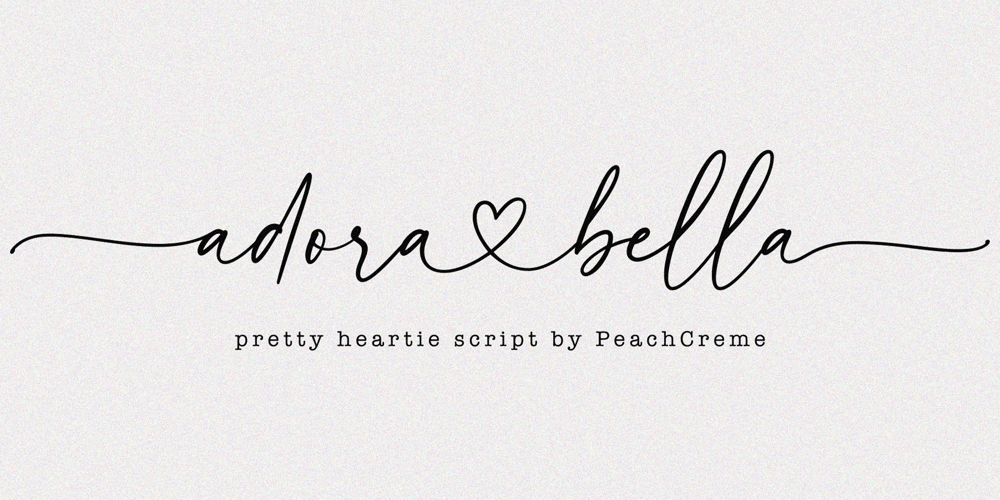
Adora Bella Font Family was designed by Gulya Yeap and published by PeachCreme. Adora Bella contains 1 styles and family package options. We’re excited to unveil our new beautiful script font, “Adora Bella.” “Adora Bella” was inspired by clean handwriting with a natural flow and works well for various designs, including wedding stationery, Instagram quotes, modern logos, packaging, websites, and many more. “Adora Bella” features fabulous beginning and ending lowercase swashes as well as lowercase heart swashes. A connecting heart swash may be used to tie two words or letters together; however, it is important to remember that this is intended to be used for joining lowercase words.